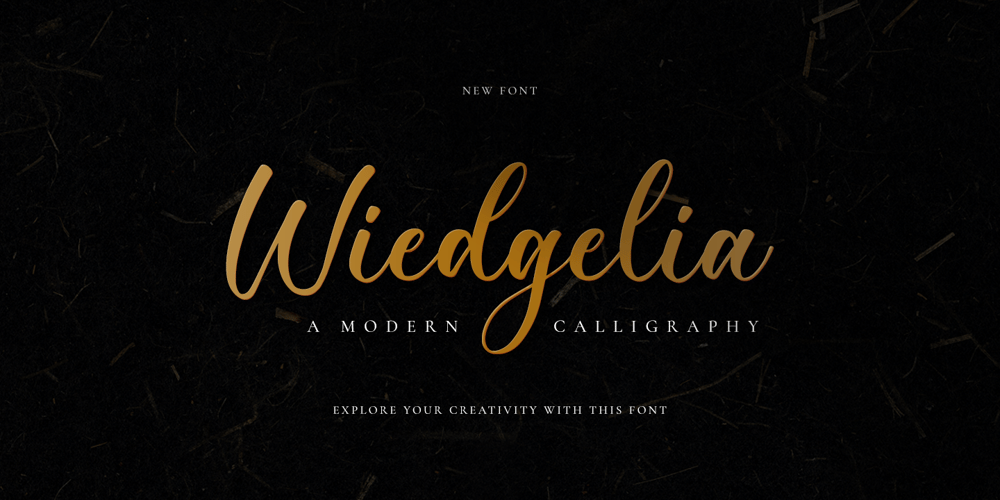
Wiedgelia
Wiedgelia font
Wiedgelia Font Family was designed by Novia Himatunnisa and published by Nissa Nana. Wiedgelia contains 1 styles and family package options. Wiedgelia is a beautiful and delicate handwritten font with a unique feel and a stunning impact. It will add a luxury spark to any design project that you wish to create!